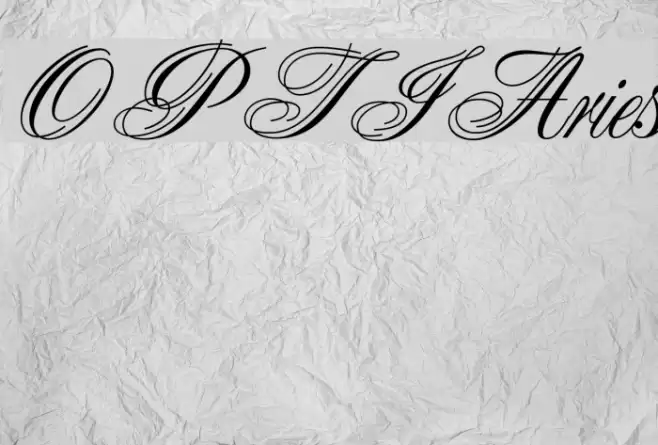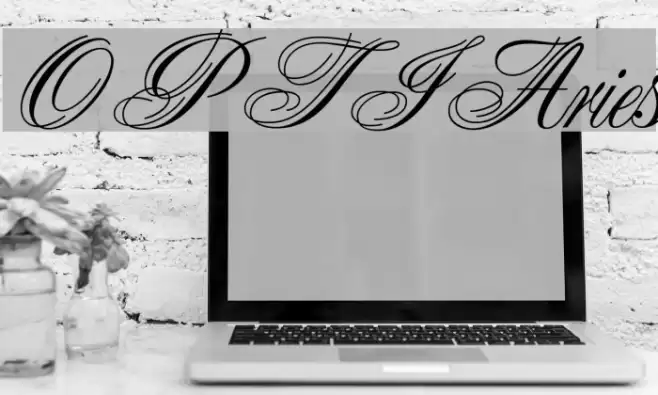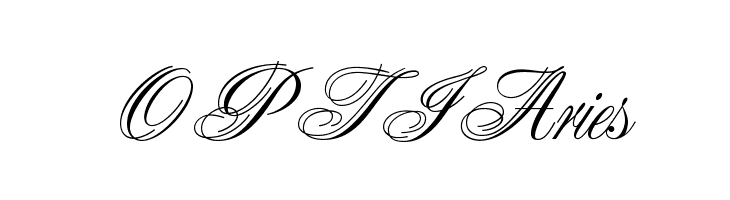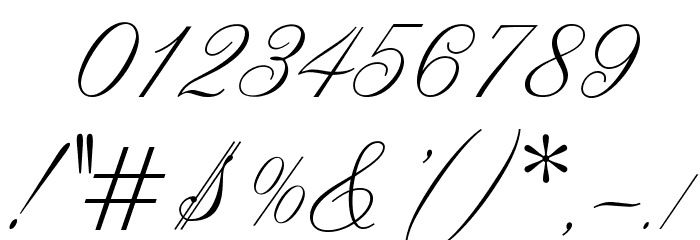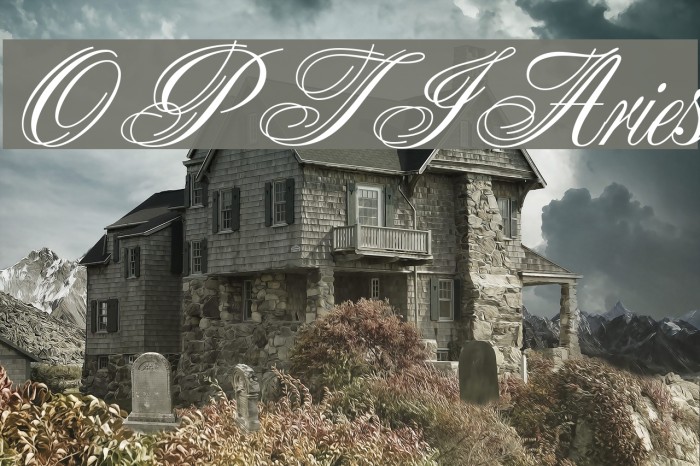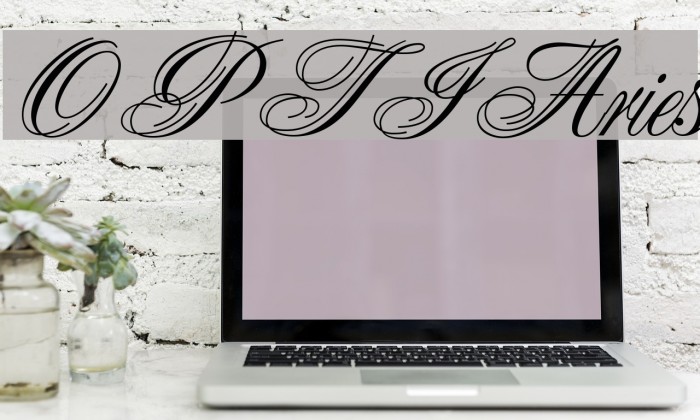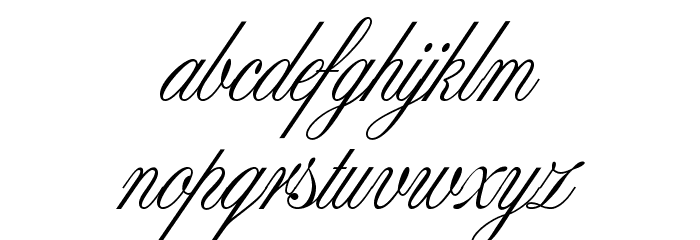
OPTIAries Font
OPTIAries Description
This elegant script font features a sophisticated and flowing design, characterized by its intricate and decorative uppercase letters. The lowercase letters maintain a smooth and connected style, providing a harmonious balance between formality and fluidity. The numerals are designed with a consistent stroke width, complementing the overall aesthetic. Special characters are crafted with the same attention to detail, ensuring a cohesive look across all glyphs. The font's high contrast between thick and thin strokes adds to its refined appearance, making it suitable for upscale and formal applications.
An elegant script font with high contrast and decorative uppercase letters from Uncategorized fonts.
- Proposed Projects: Ideal for wedding invitations, luxury branding, elegant stationery, and formal event programs.
- Overall Style: Elegant
- Use Case: Logos, Invitations, Decorative text